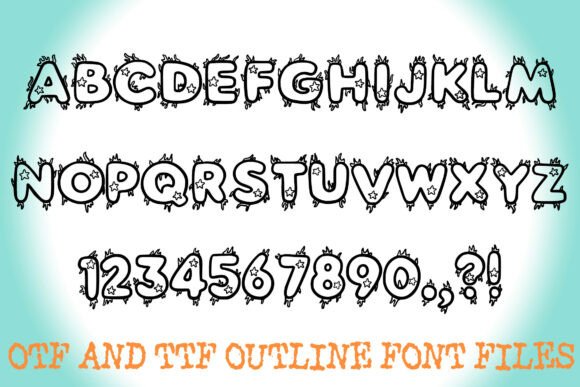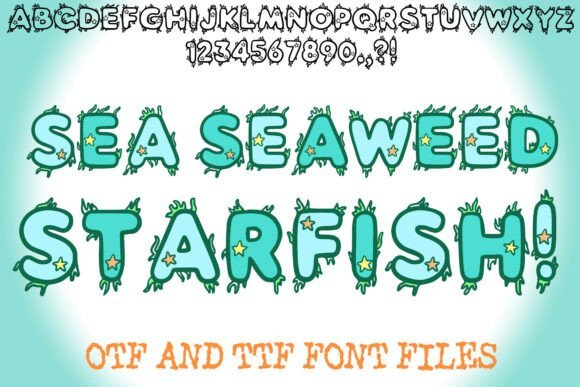
Introduction to Sea Seaweed Starfish Font
Dive into a design adventure with the Sea Seaweed Starfish Font.
This is a unique, eye-catching bubble display font that brings the mysterious and playful energy of the ocean deep to your projects The font is defined by its key features: a chunky, rounded letter body that gives a friendly, high-impact presence; whimsical, flowing lines surrounding the characters that mimic the movement of seaweed and ocean tentacles; and internal star shapes within each letter and number, suggesting glowing bioluminescence.
Why Choose Sea Seaweed Starfish Font?